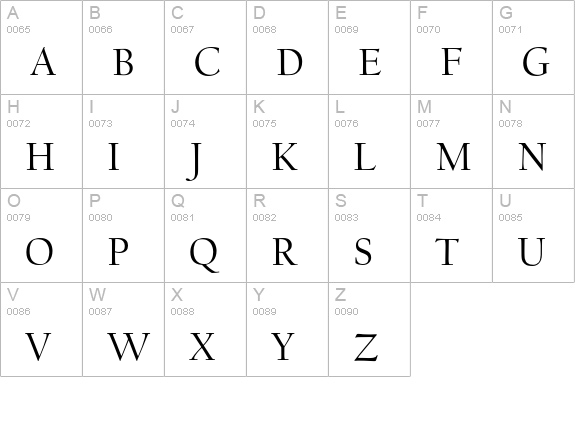
CalifornianMiddle-Roman Font Details
CalifornianMiddle-Roman font is a classic and elegant typeface that exudes sophistication and charm. Its timeless design makes it suitable for various projects, from formal invitations to branding materials. The font features a perfect balance of traditional and modern elements, making it versatile and easy to read. What sets CalifornianMiddle-Roman font apart is its subtle yet distinct characteristics, such as the graceful curves of the serifs and the refined spacing between letters. These details contribute to the overall harmonious look of the typeface, making it a favorite among designers and typographers. The best part about CalifornianMiddle-Roman font is that it is free to download at FontsMarket.com. This means you can easily access and use this beautiful font in your projects without any cost. Whether you're working on a personal or commercial project, CalifornianMiddle-Roman font is a fantastic choice that will elevate your design to the next level.